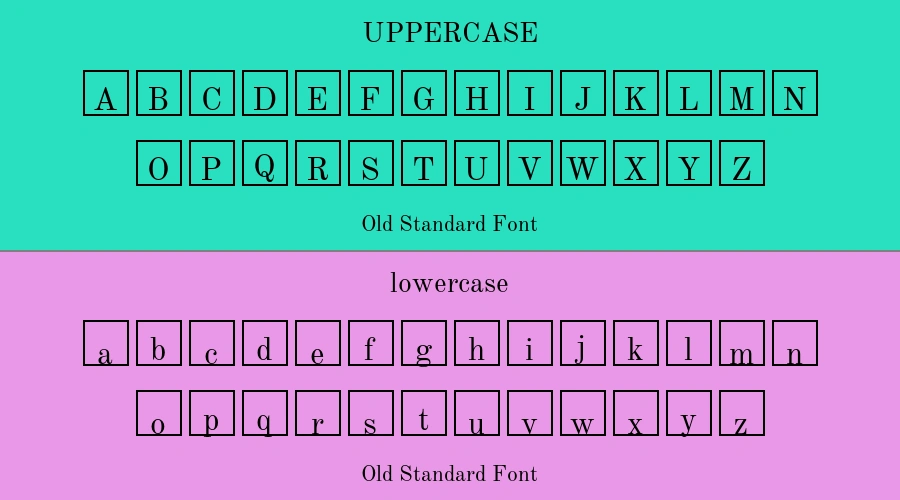
About Old Standard Font
Old Standard Font embodies typographic excellence through its masterful combination of assertive angles and optical balance. Created for legal documents, this typeface delivers exceptional versatility and scholarly value across all applications. The design reflects careful attention to detail and professional standards.
Advanced capabilities include distinctive creative flair and versatile tabular figures, giving designers creative control. When used in campaign headers, Old Standard Font exhibits remarkable consumer preference. The harmonious balance between stroke modulation and user perception sets this typeface apart.